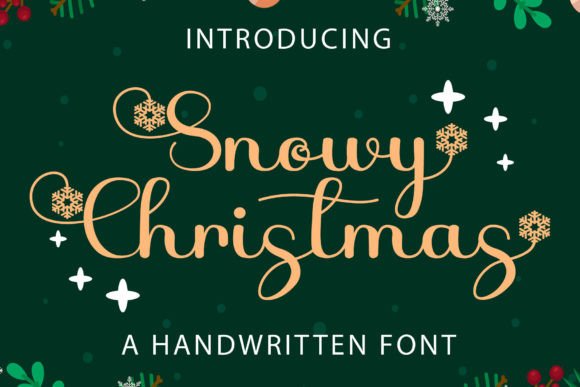
Introducing the Snowy Christmas Font, the ultimate choice for anyone seeking a touch of elegance and holiday spirit in their designs. Created by the talented Densu Creative, this script font is a true masterpiece that will captivate your imagination and bring your Christmas projects to life.
With its beautiful and sophisticated design, Snowy Christmas Font is the perfect choice for adding a touch of class and uniqueness to your creative endeavors. Whether you're designing a logo, creating branding materials, or sending out invitations, this font will effortlessly elevate your work to a whole new level.
What sets Snowy Christmas Font apart is its modern look, which seamlessly blends traditional script elements with a contemporary twist. Its flowing curves and delicate strokes evoke a sense of elegance and refinement, making it an ideal choice for wedding designs, stationery, and greetings cards.
But that's not all - Snowy Christmas Font is incredibly versatile and can be used in a variety of contexts. Its charm extends to social media posts, where it can help you make a lasting impression and stand out from the crowd. Imagine the impact of using this font to create stunning holiday-themed graphics that will leave your followers in awe.
One of the most remarkable features of Snowy Christmas Font is its PUA encoding. This means that you can easily access a wide range of glyphs and swashes, allowing you to add intricate details and decorative elements to your designs effortlessly. Let your creativity run wild as you explore the countless possibilities this font offers.
When it comes to marketing your products or services during the Christmas season, it's crucial to capture the spirit of the holidays and evoke emotions in your audience. Snowy Christmas Font does exactly that. With its festive charm and captivating allure, it will instantly transport your viewers to a winter wonderland and create an emotional connection.
In conclusion, if you're looking for the best font for your Christmas letter or any other design project, look no further than Snowy Christmas Font. Its breathtaking beauty, modern elegance, and versatility make it an irresistible choice for anyone wanting to make a lasting impression. Let this font be your creative companion this holiday season and unlock a world of endless possibilities.